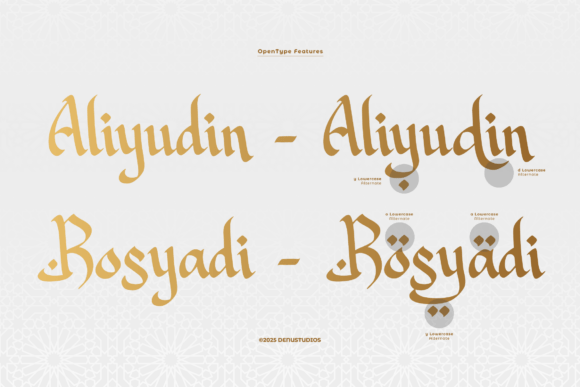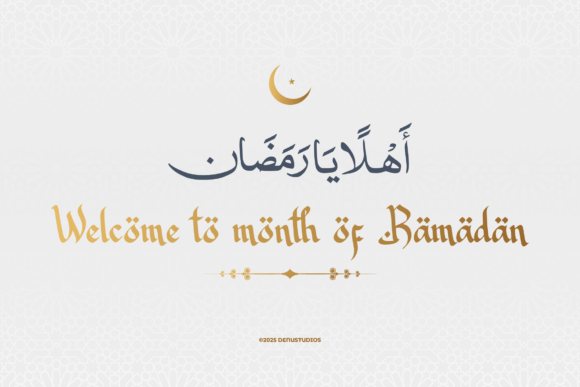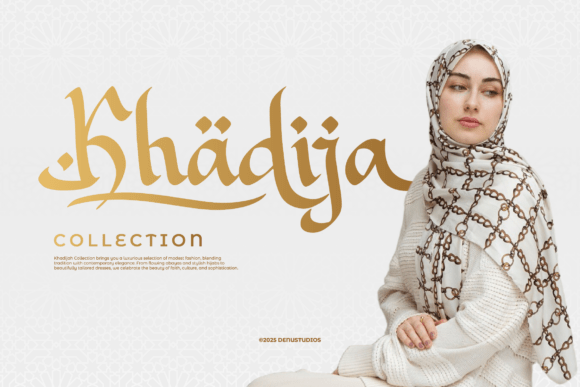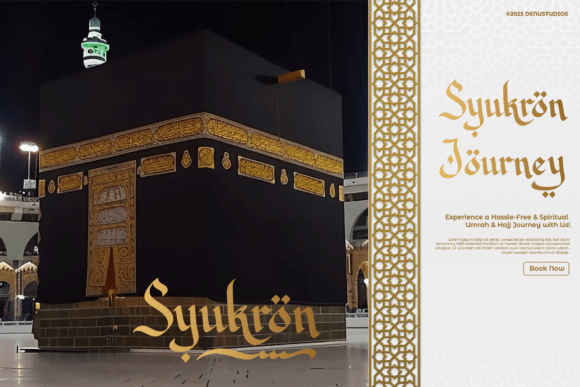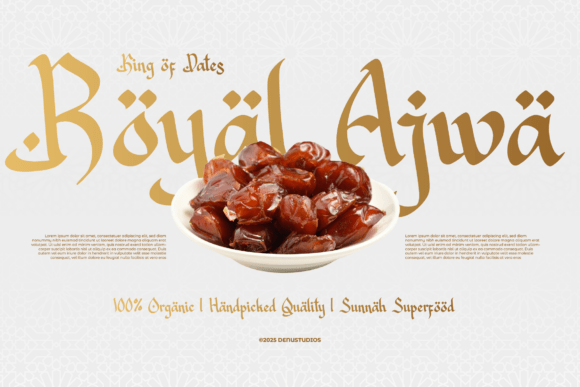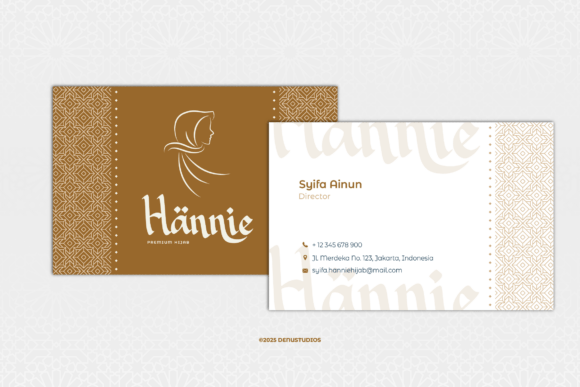
Introduction to Khazana Font
Khazana is an elegant and culturally rich typeface inspired by Islamic calligraphy and Arabic script aesthetics.
With its fluid strokes, graceful curves, and refined details, this font adds a luxurious and historical feel to any design Perfect for branding, invitations, book covers, Ramadan and Eid designs, and more.
Key Features of Khazana Font
Khazana Font offers exceptional quality and versatility, making it a valuable addition to your design toolkit. Whether you’re creating for personal projects or commercial use, Khazana Font delivers professional results.